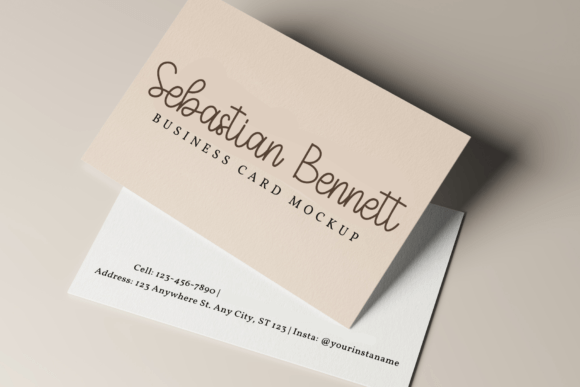
Hello Wedding Font
Hello Wedding is a fun and quirky handwriting font perfect for use on cheerful topics. Very suitable for children’s themed designs, especially when combined with bright colors.